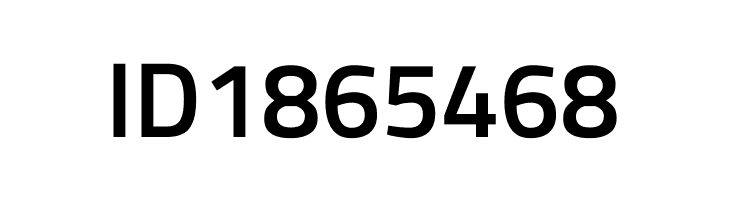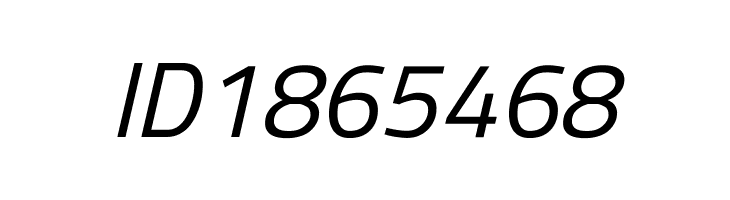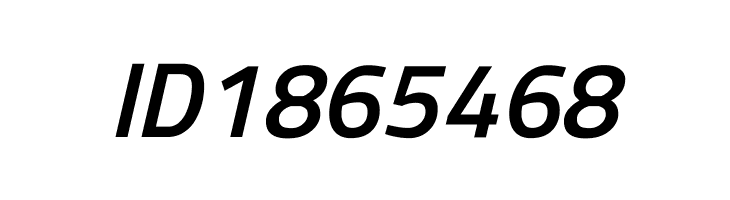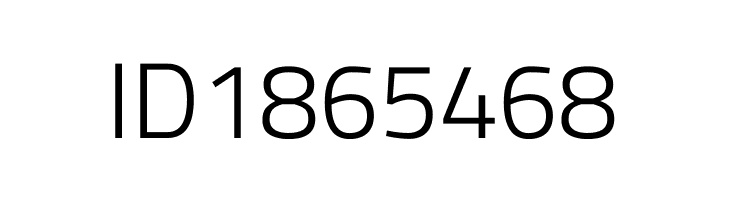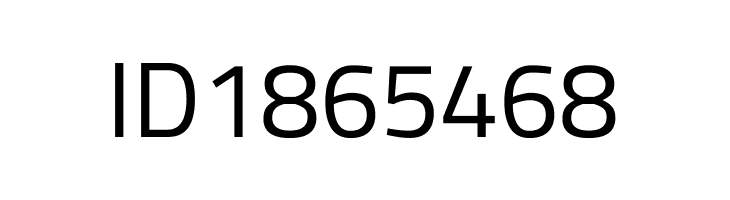
A modern, thin sans-serif font with clean lines and excellent readability.
A modern, geometric sans-serif font with balanced proportions and medium contrast.
A modern, italicized font with clean lines and a dynamic appearance.
A modern, semi-bold italic font with clean strokes and dynamic slant.
A bold, geometric font with strong, uniform strokes and modern appeal.
A modern, clean sans-serif typeface with consistent stroke width and excellent readability.
A modern, bold, and italicized font with a sleek and dynamic appearance.
A thin, italicized font with a modern and elegant style.
A modern, bold sans-serif font with excellent readability and versatility.
A modern, geometric sans-serif font with balanced proportions and medium contrast.